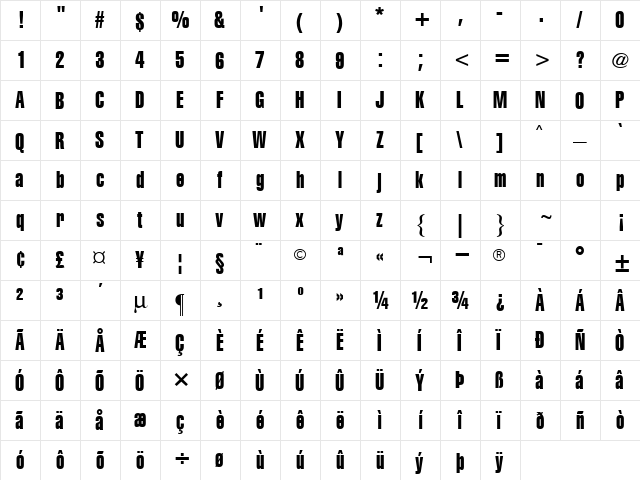
Triumvirate Extra Compressed Regular
Design Context for Triumvirate Extra Compressed Typeface
Triumvirate Extra Compressed offers clean, dependable letterforms without strong stylistic allegiance, making it a practical choice for designers who need flexibility.
Pro Tip: Use Triumvirate Extra Compressed in both headline and body roles to test its range before committing to a single application.